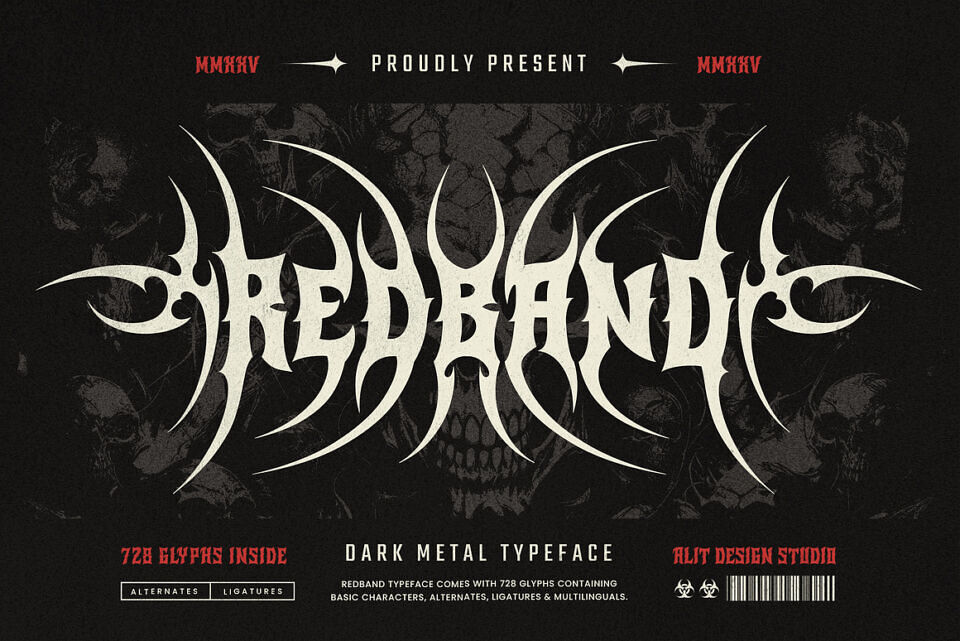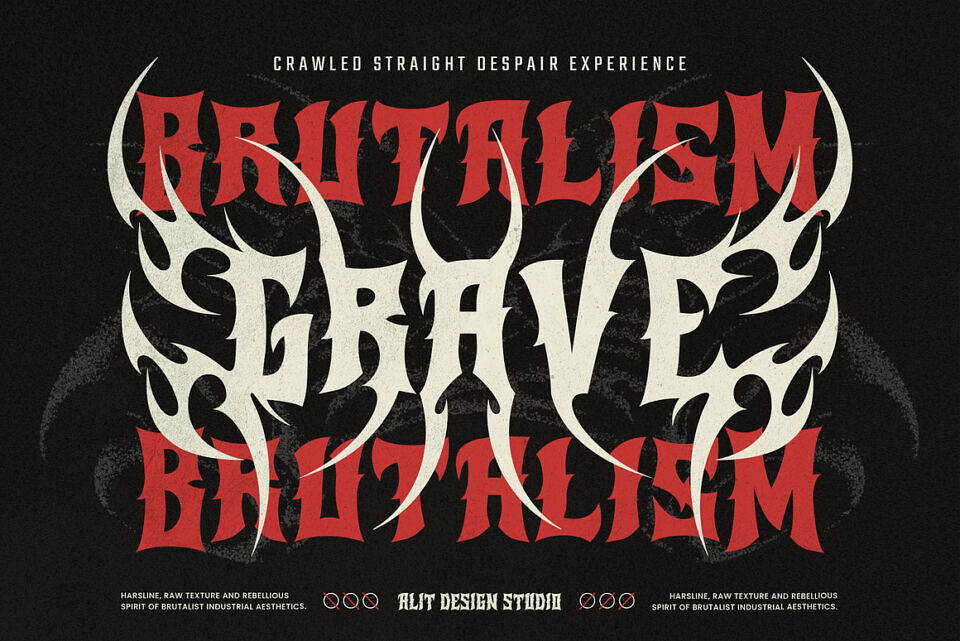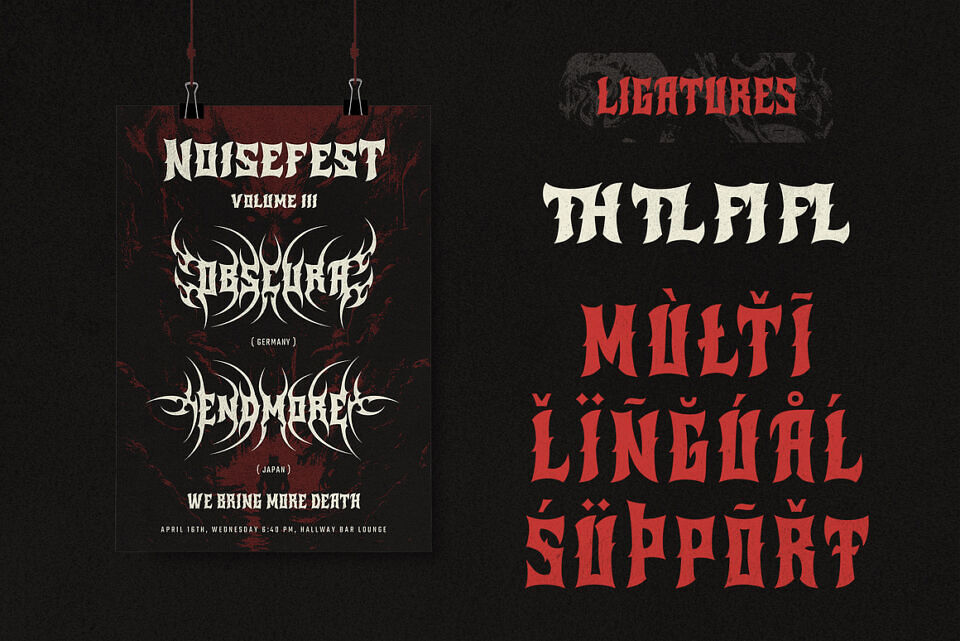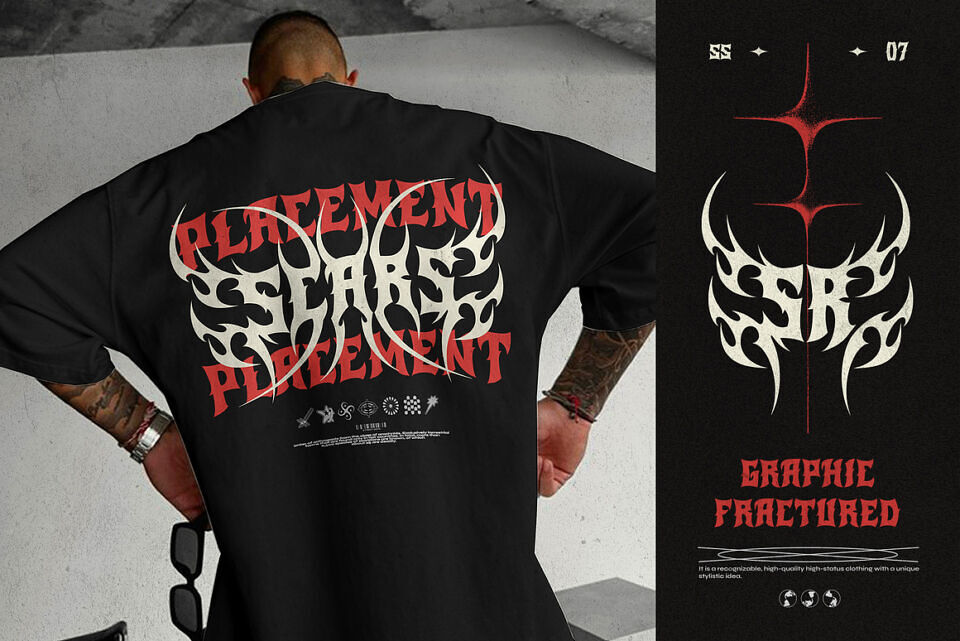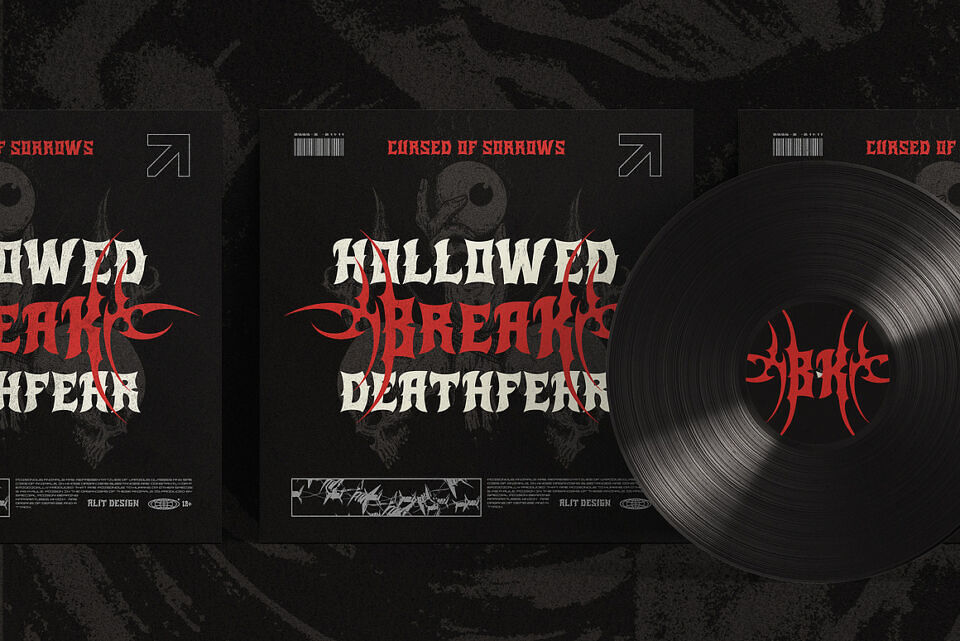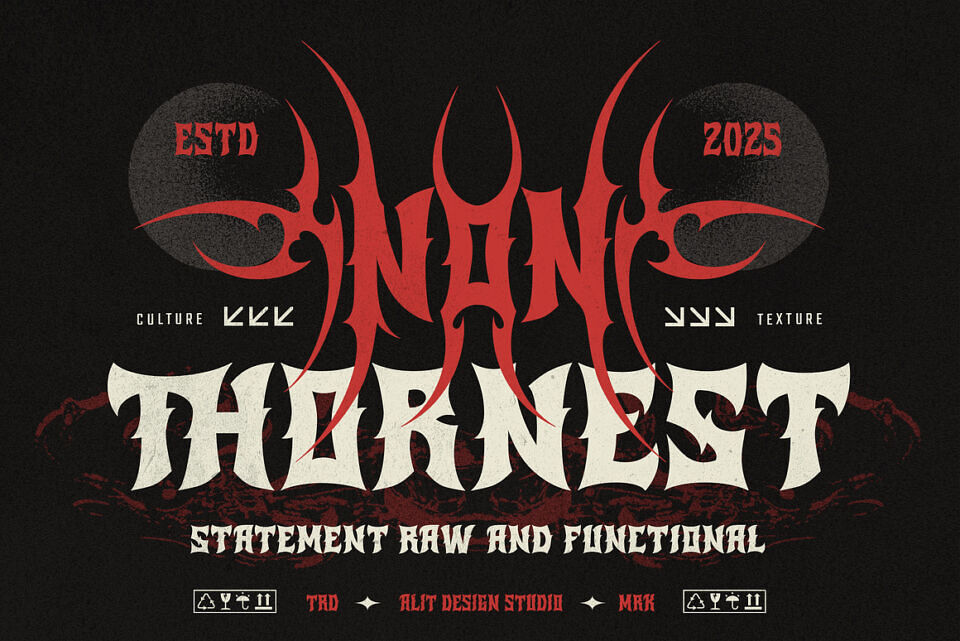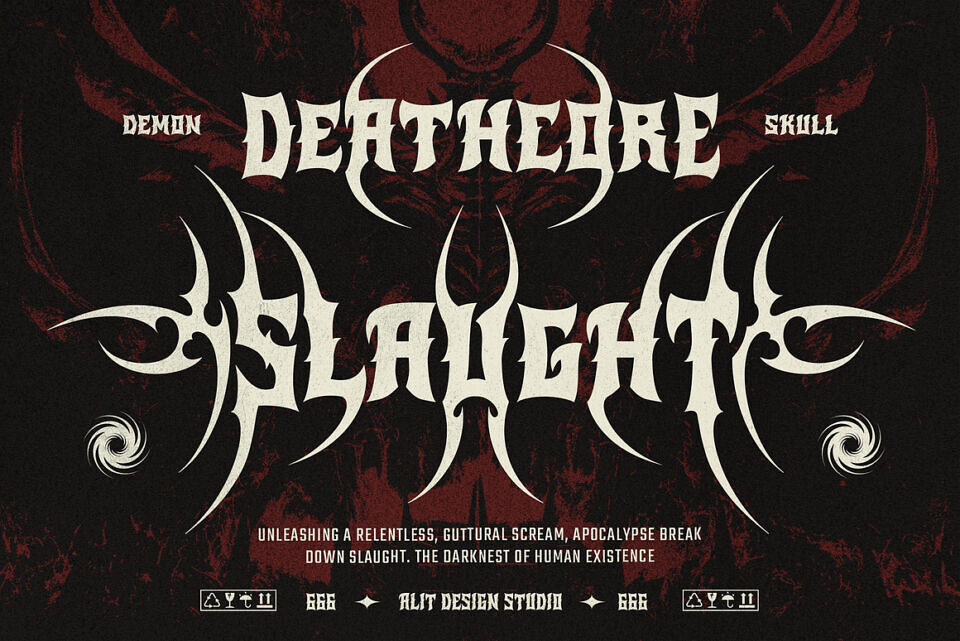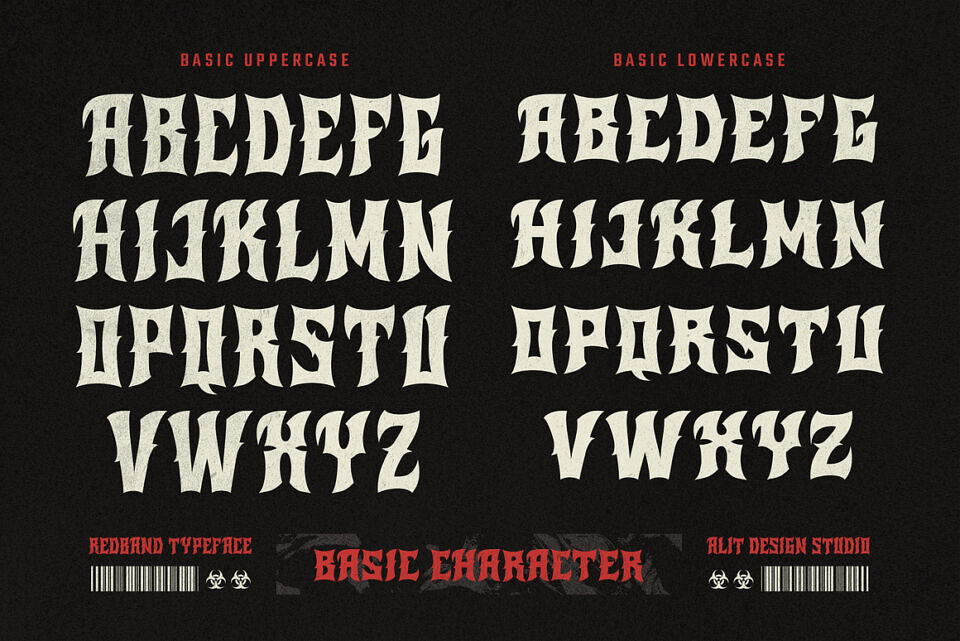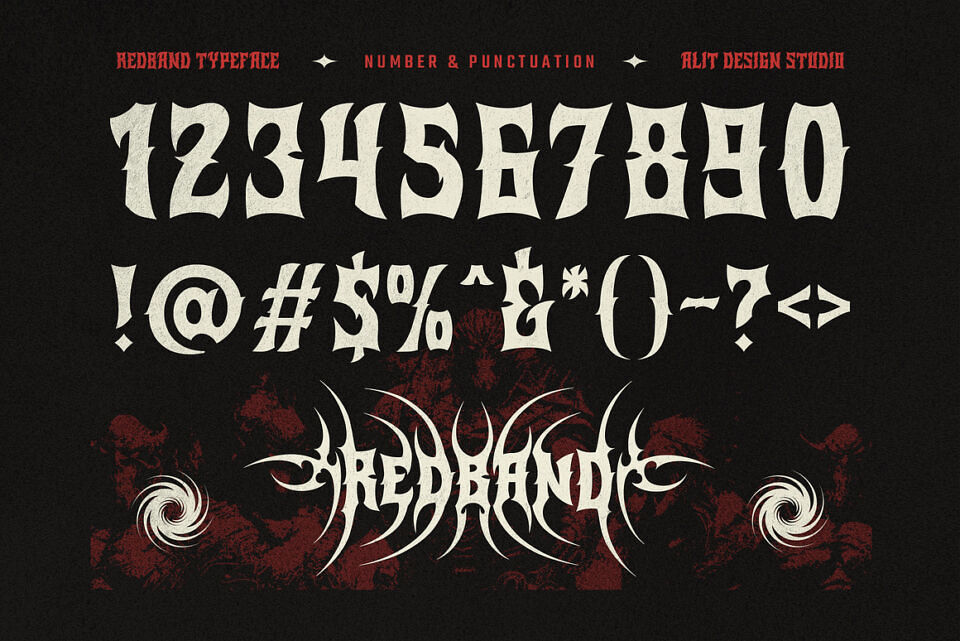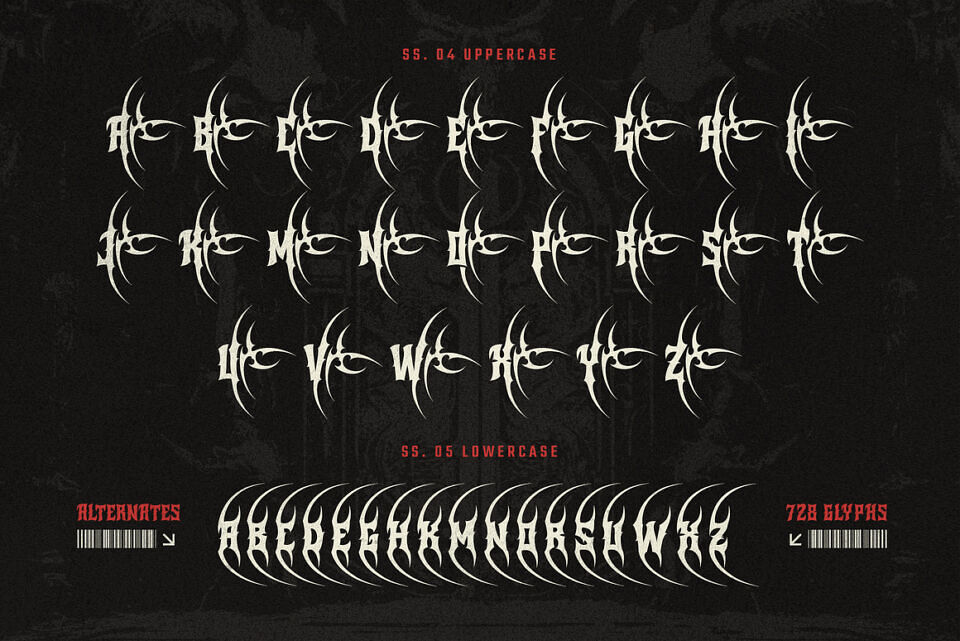
Step into the world of raw power and untamed aggression with Red Band Typeface, a bold and ferocious typeface designed for those who refuse to go unnoticed. Inspired by the chaotic energy of heavy metal, gothic art, and tribal aesthetics, this font brings a dark and commanding presence to any design.
With its thorn-covered letterforms and razor-sharp tribal swashes, RedBand Typeface embodies rebellion, dominance, and strength. Perfect for metal band logos, album covers, streetwear branding, tattoo designs, extreme sports, gaming, horror movie posters, and more, this typeface is built for creators who demand impact.